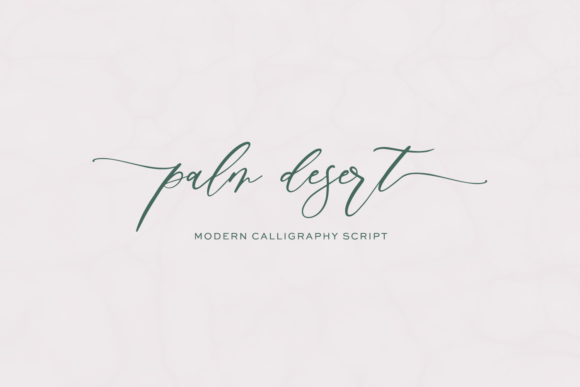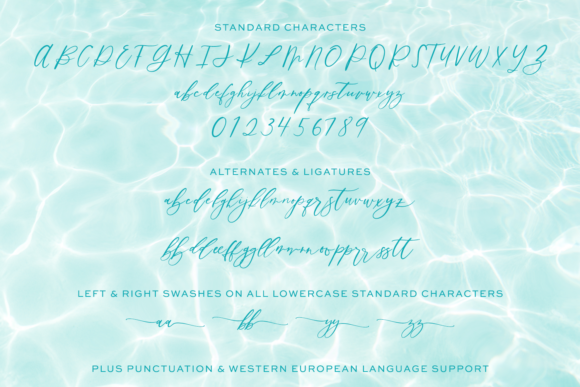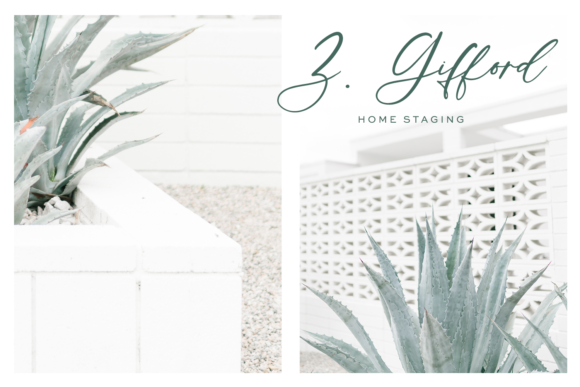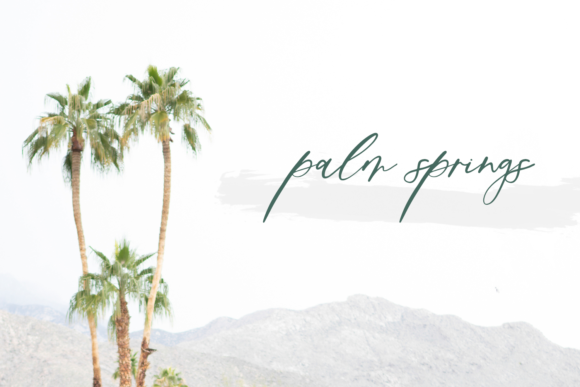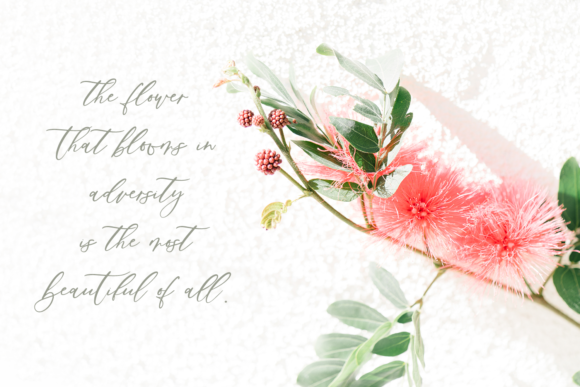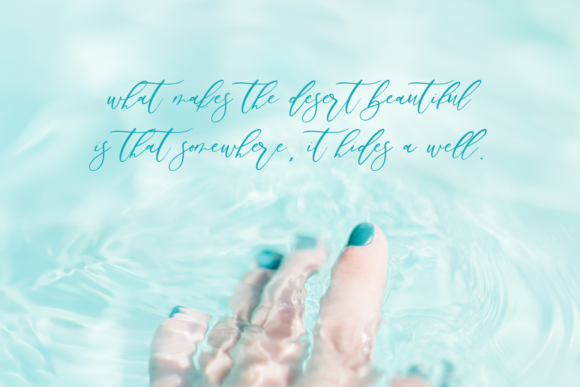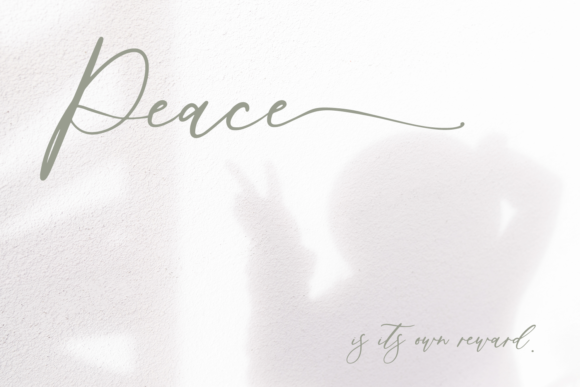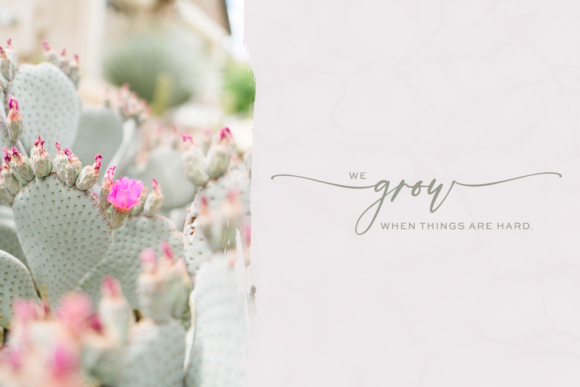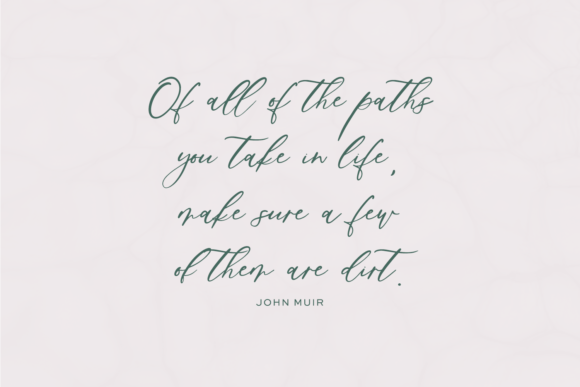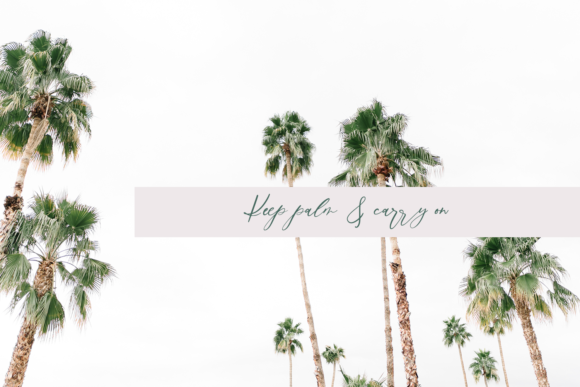
Palm Desert Font
About Palm Desert Font
Palm Desert is a beautiful flowing font with gorgeous features. It is perfectly suited for a wide variety of projects!